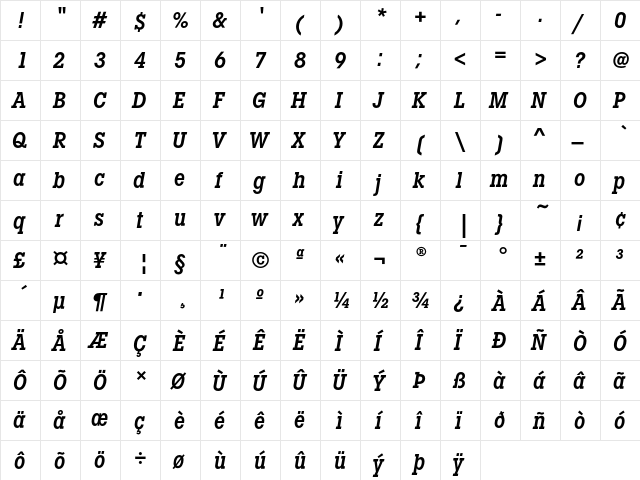
LubalinGraphEF DemiCondObl
Design Context for LubalinGraphEF Typeface
LubalinGraphEF is a composed and adaptable typeface that performs quietly and consistently across a wide range of design contexts. The condensed width makes it efficient for tight spaces without sacrificing legibility.